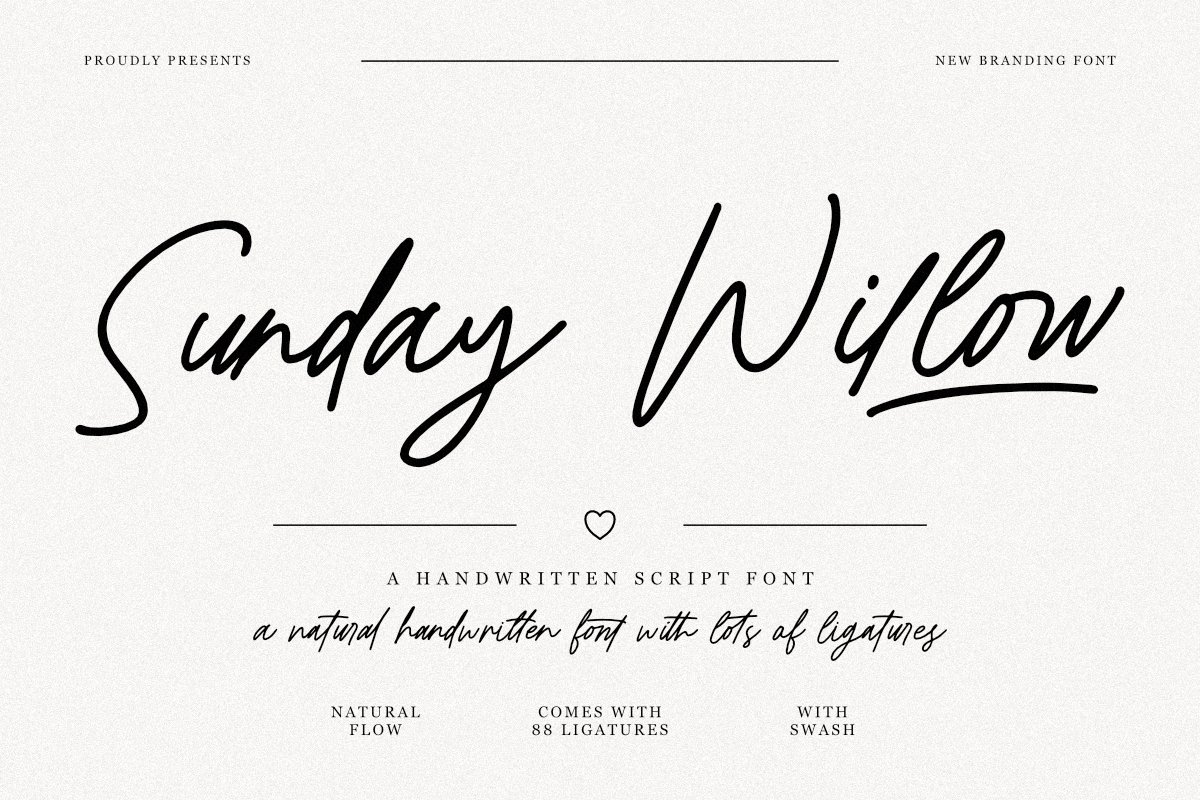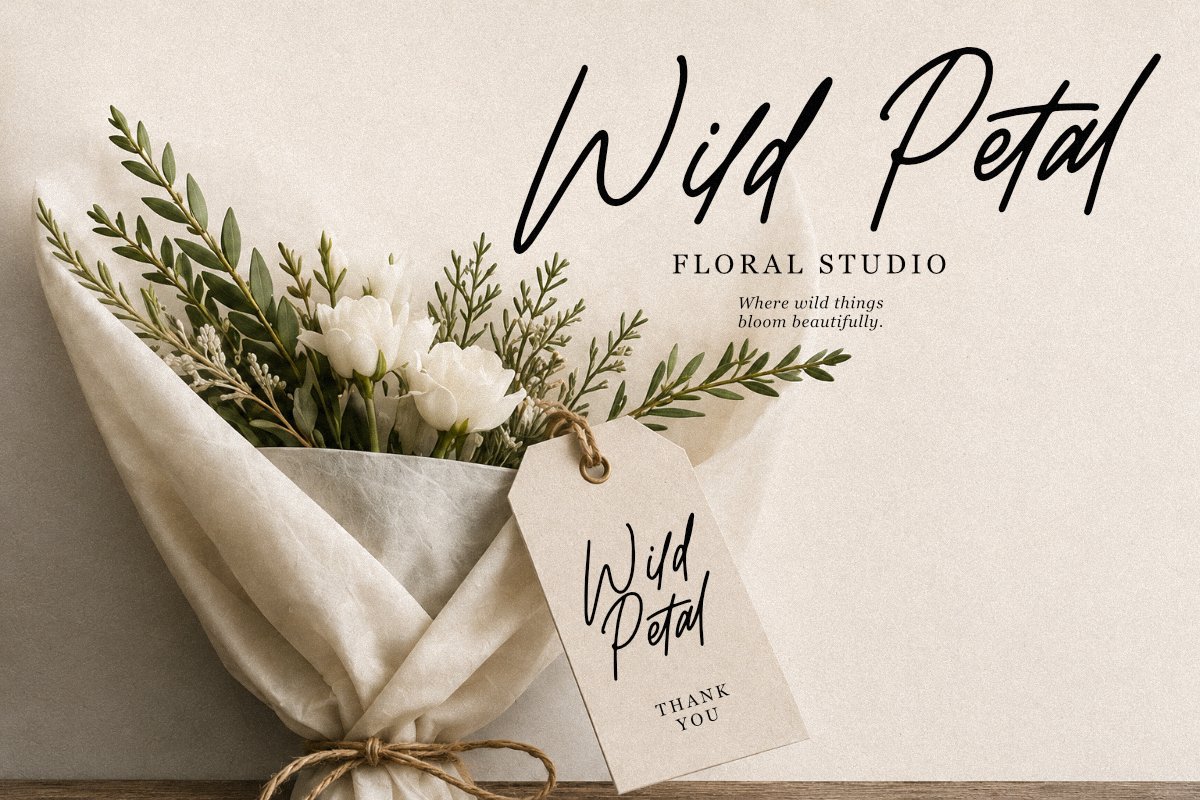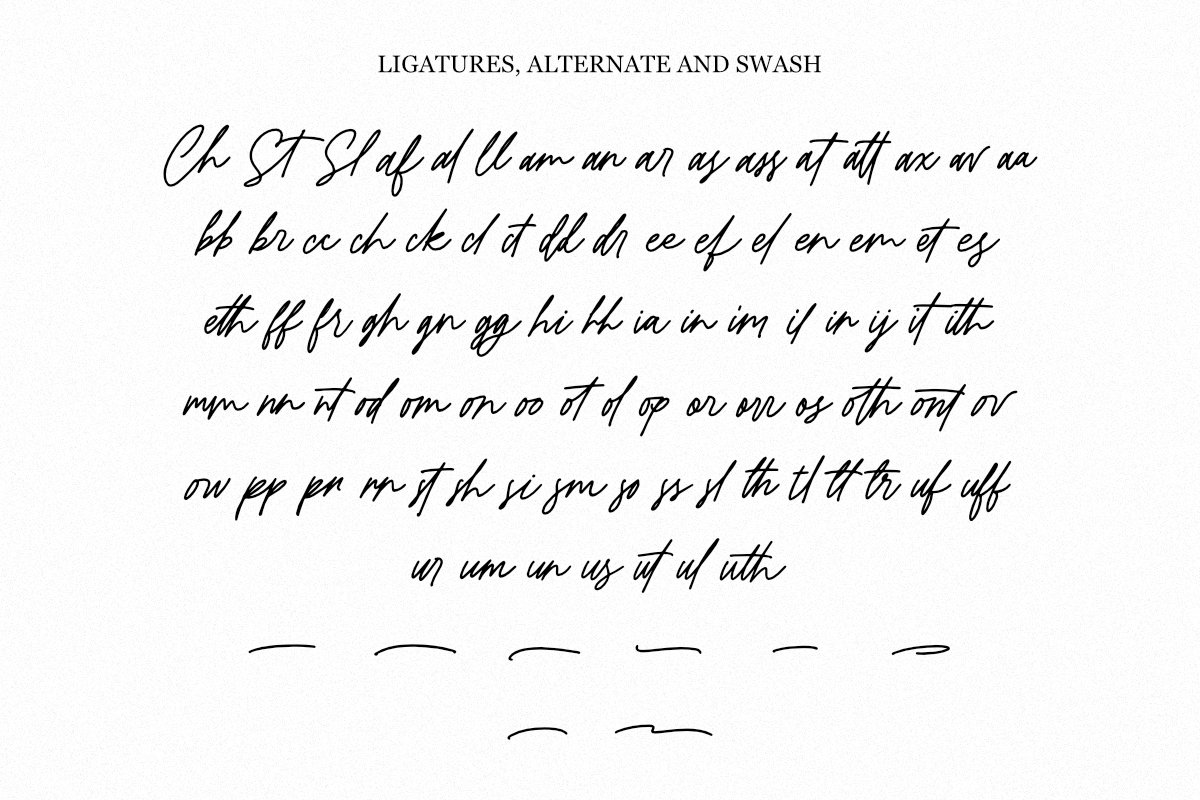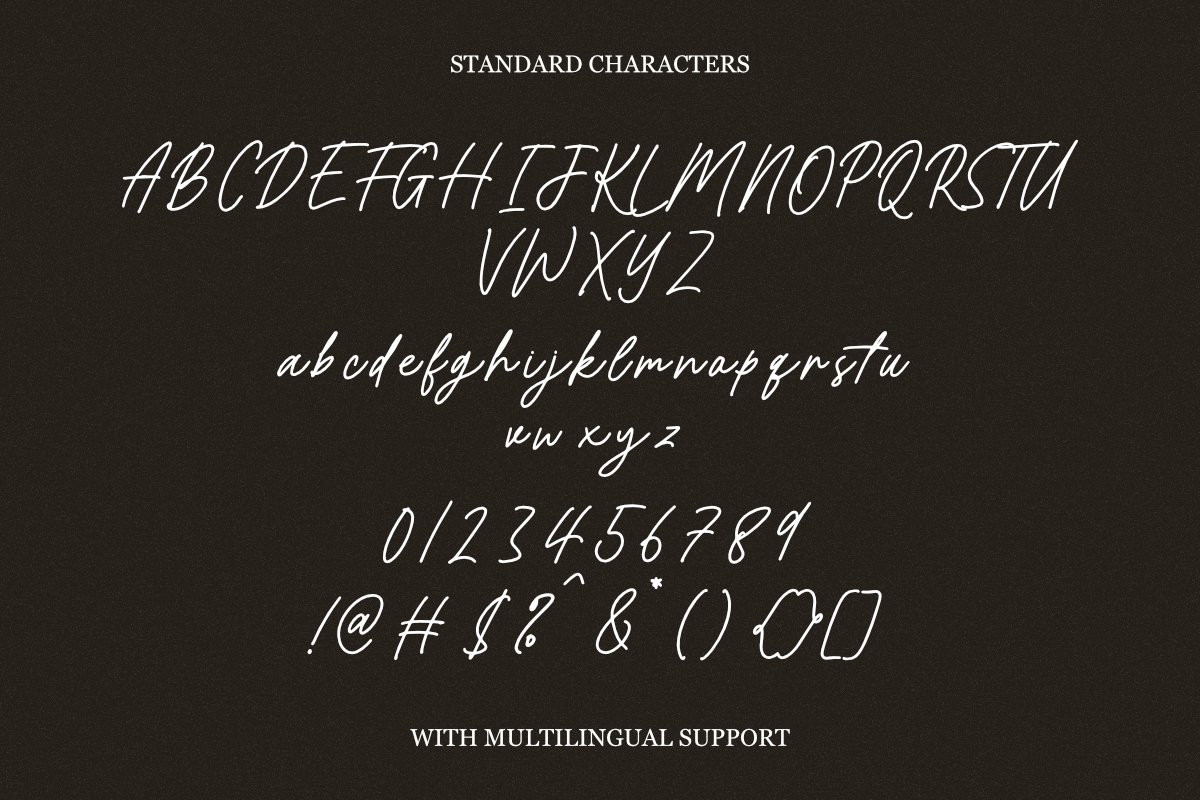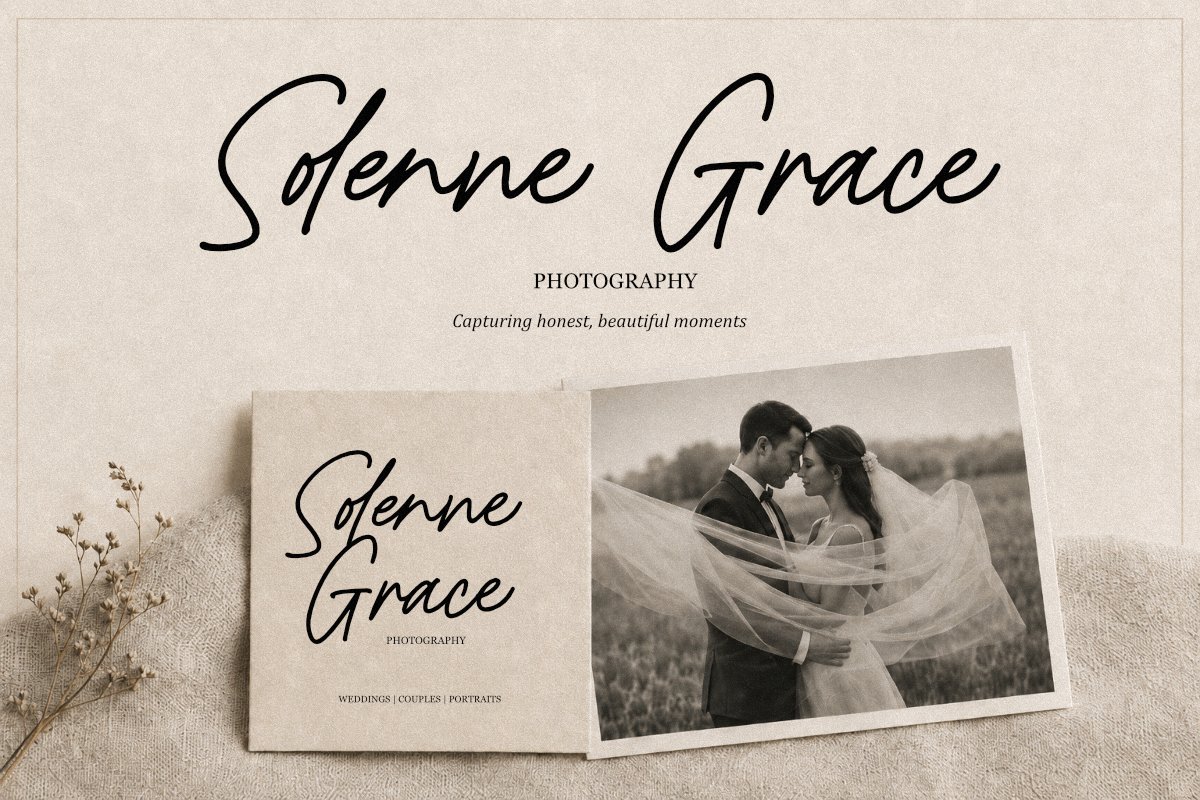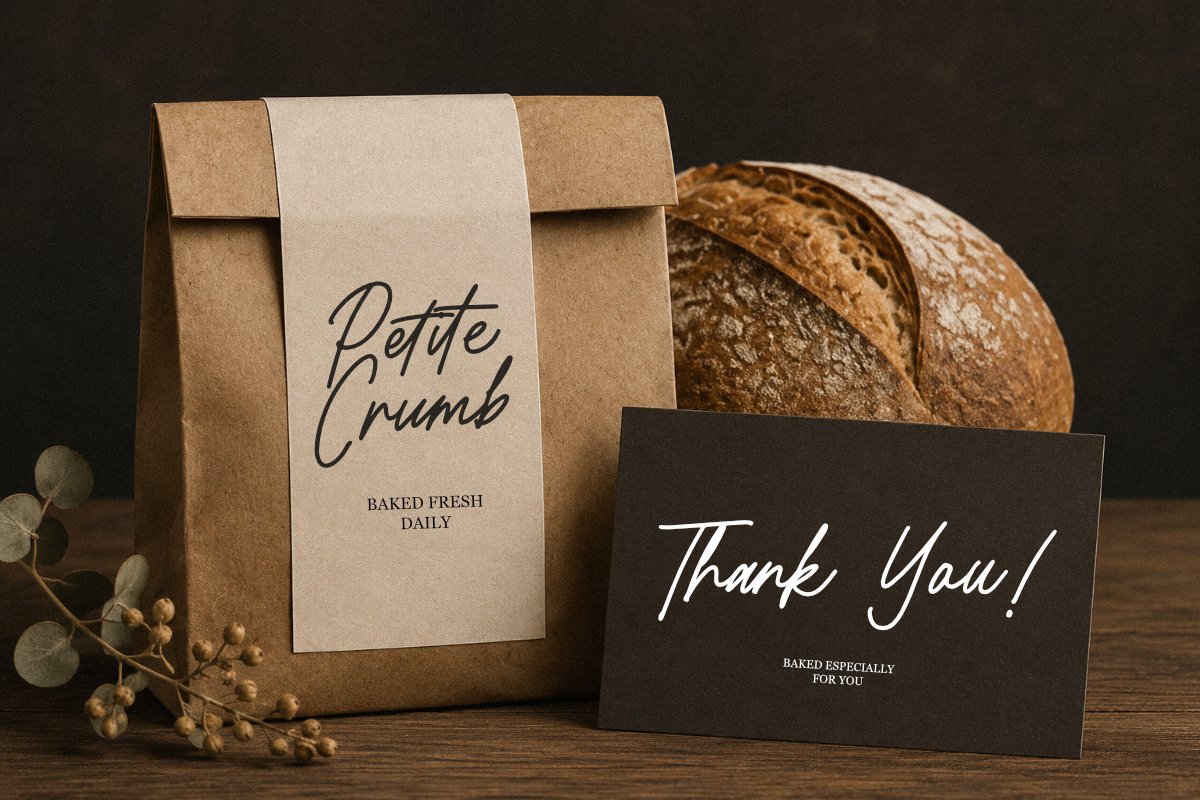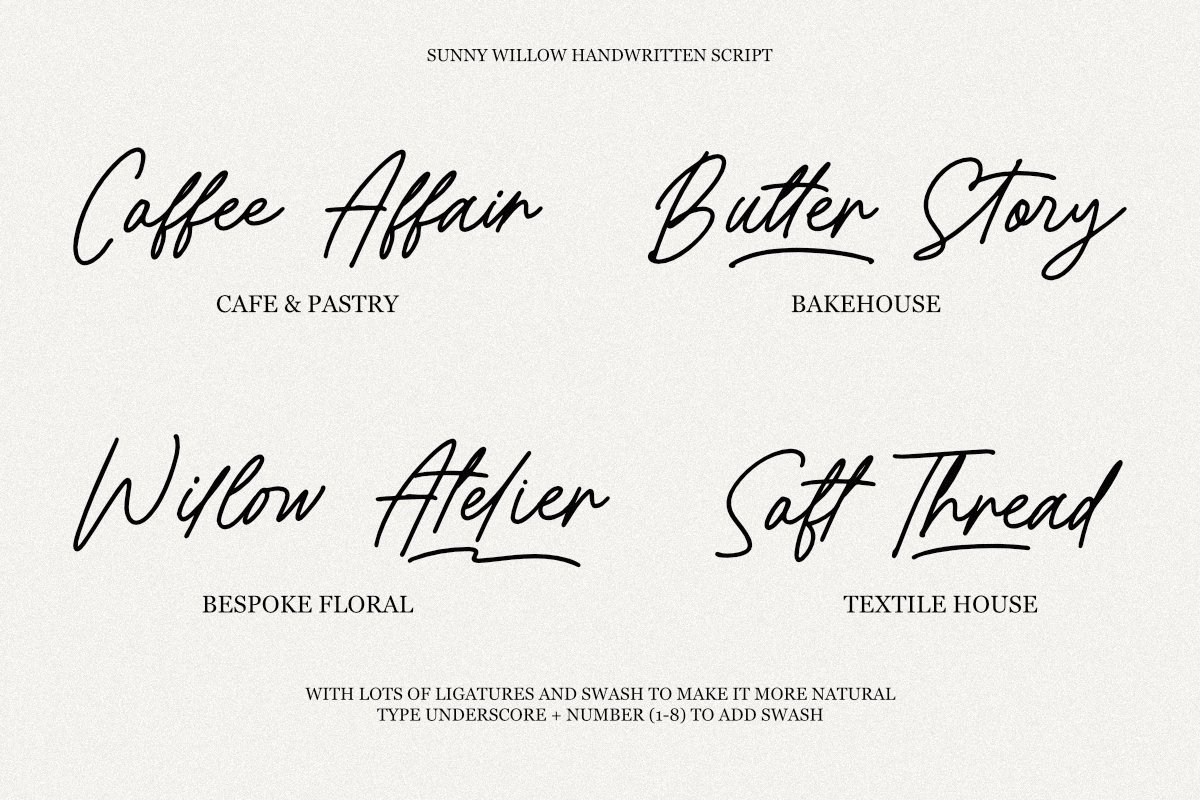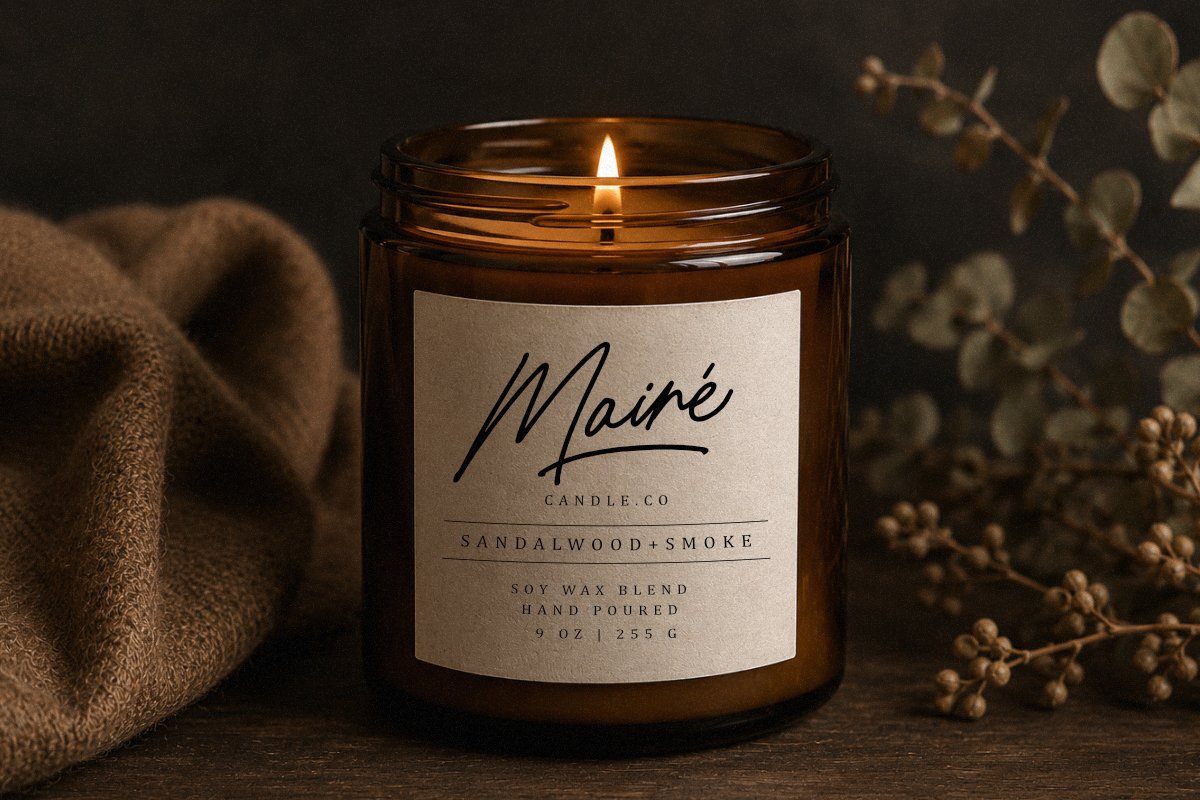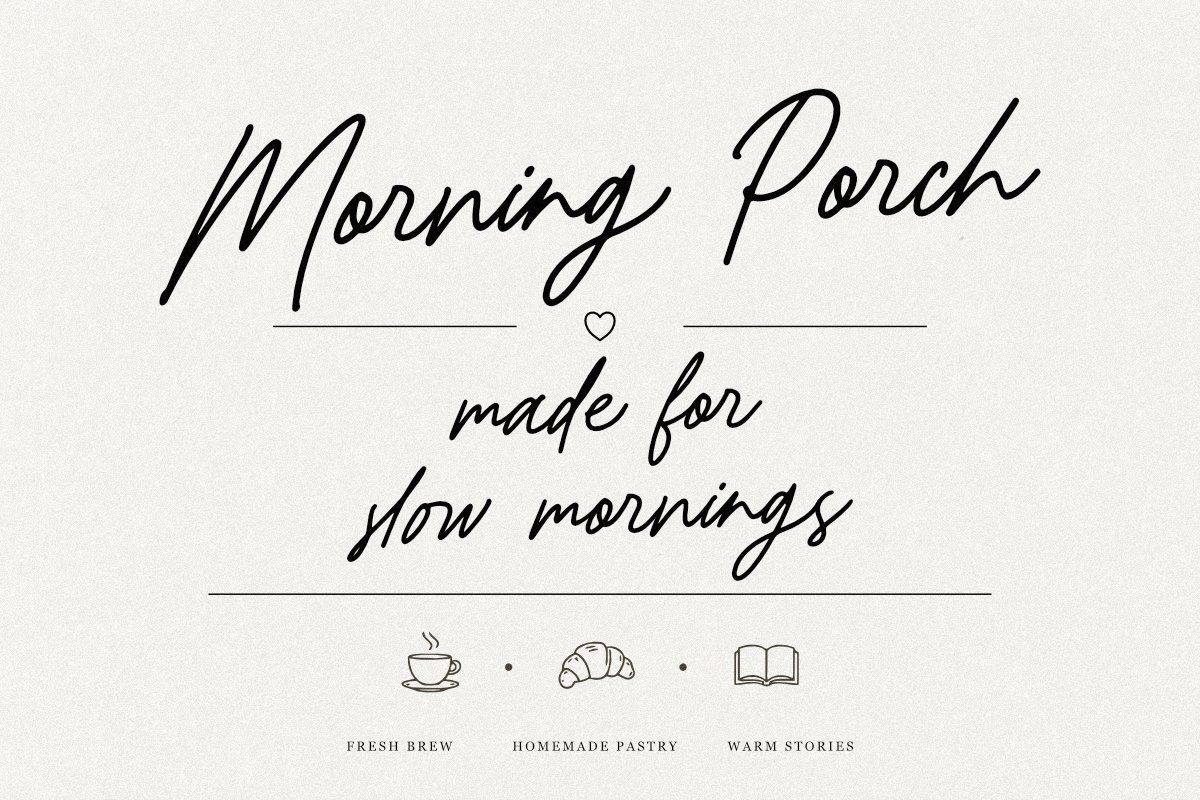
Sunday Willow - Handwritten Script Font
Sunday Willow is a modern handwritten script font with a soft, natural, and elegant flow. Inspired by cozy cafés, slow mornings, handwritten notes, and warm lifestyle branding, this font is perfect for creating designs that feel personal, stylish, and timeless.
Sunday Willow includes 88 ligatures, beautiful swash characters, alternates, numerals, punctuation, and multilingual support. It is ideal for logos, café branding, bakery packaging, florist tags, candle labels, boutique identity, wedding photography, invitations, quotes, social media posts, and product packaging.
– 88 ligatures
– swash, alternates, multilingual support.